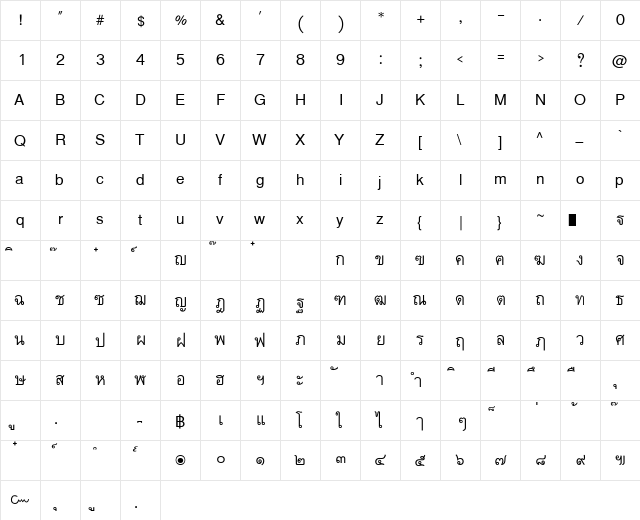
Phan Regular
Design Context for Phan Typeface
Phan takes a measured approach to typography — its balanced proportions and neutral character make it a reliable workhorse for both digital and print work.